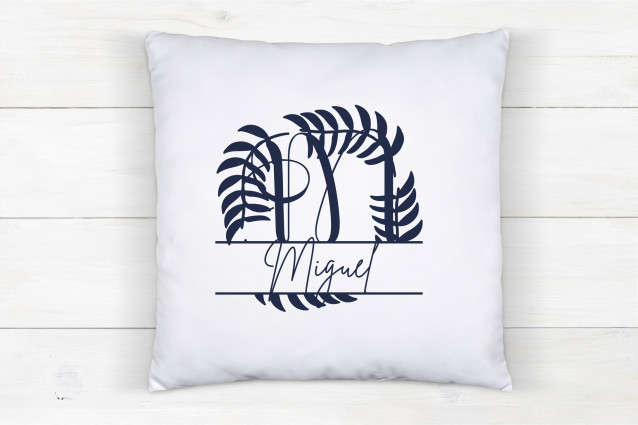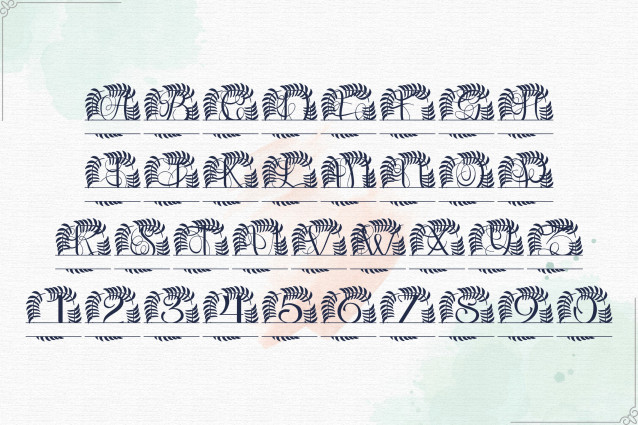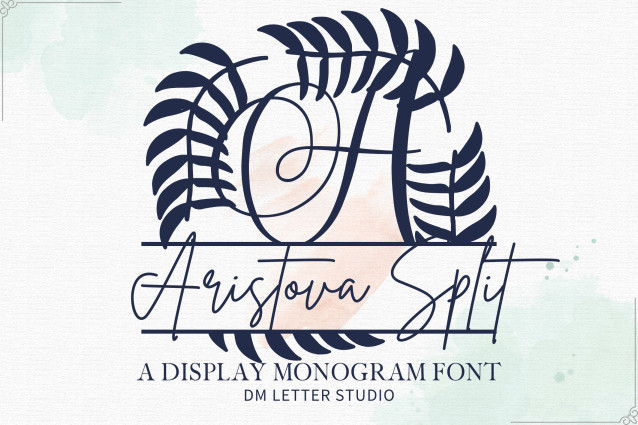
Aristova Split Monogram Font
Aristova Split Monogram Font is a refined serif font designed with elegance and customization in mind. Each uppercase letter features graceful detailing and a clean horizontal split, making it easy to add names, dates, or custom messages within the design. With its polished look and versatile style, Aristova Split Monogram is perfect for weddings, luxury branding, boutique logos, packaging, and personalized crafts.
This font allows you to create monograms that feel both timeless and modern. The serif foundation keeps your text structured and professional, while the split design provides flexibility for personalization. Whether you are designing wedding invitations, gift tags, event signage, or Cricut/Silhouette projects, Aristova Split Monogram helps you achieve a balance of beauty and function.
By combining elegant serif styling with customizable split monogram functionality, Aristova Split Monogram makes every project feel refined and personal. Use it to create keepsakes, high-end branding, or digital products that stand out with sophistication.